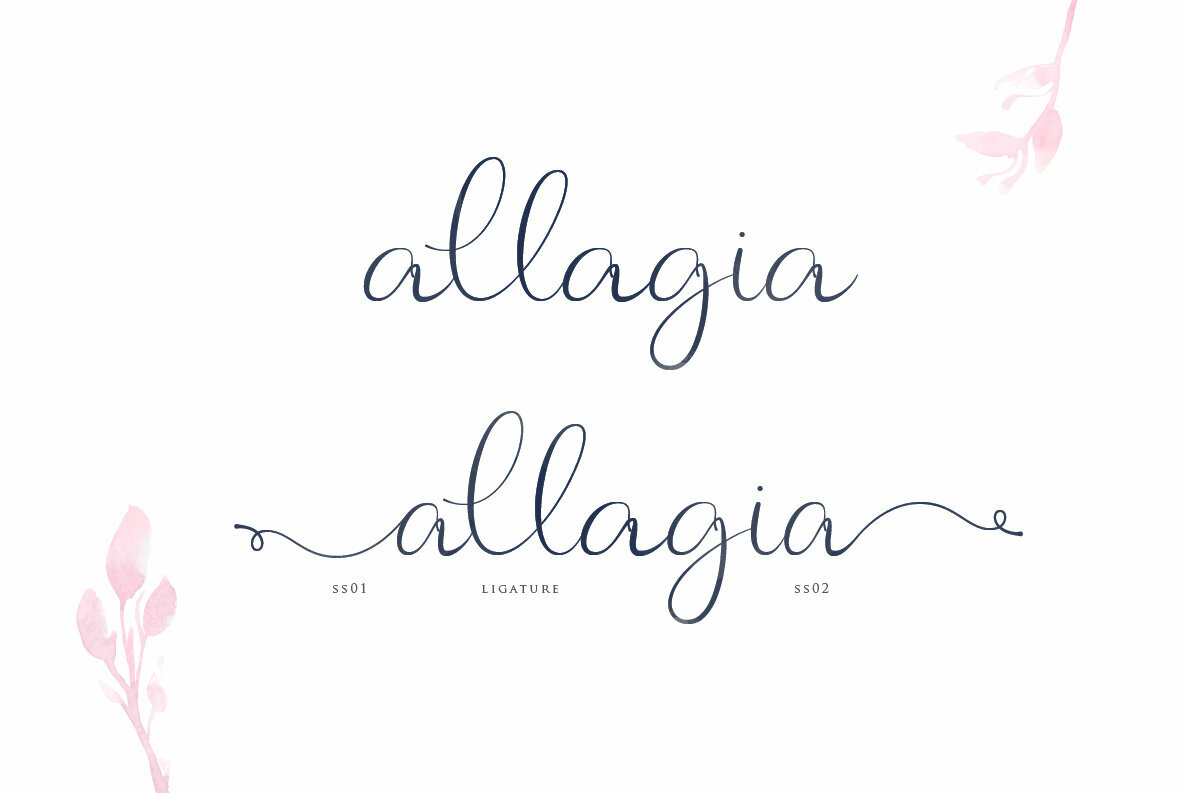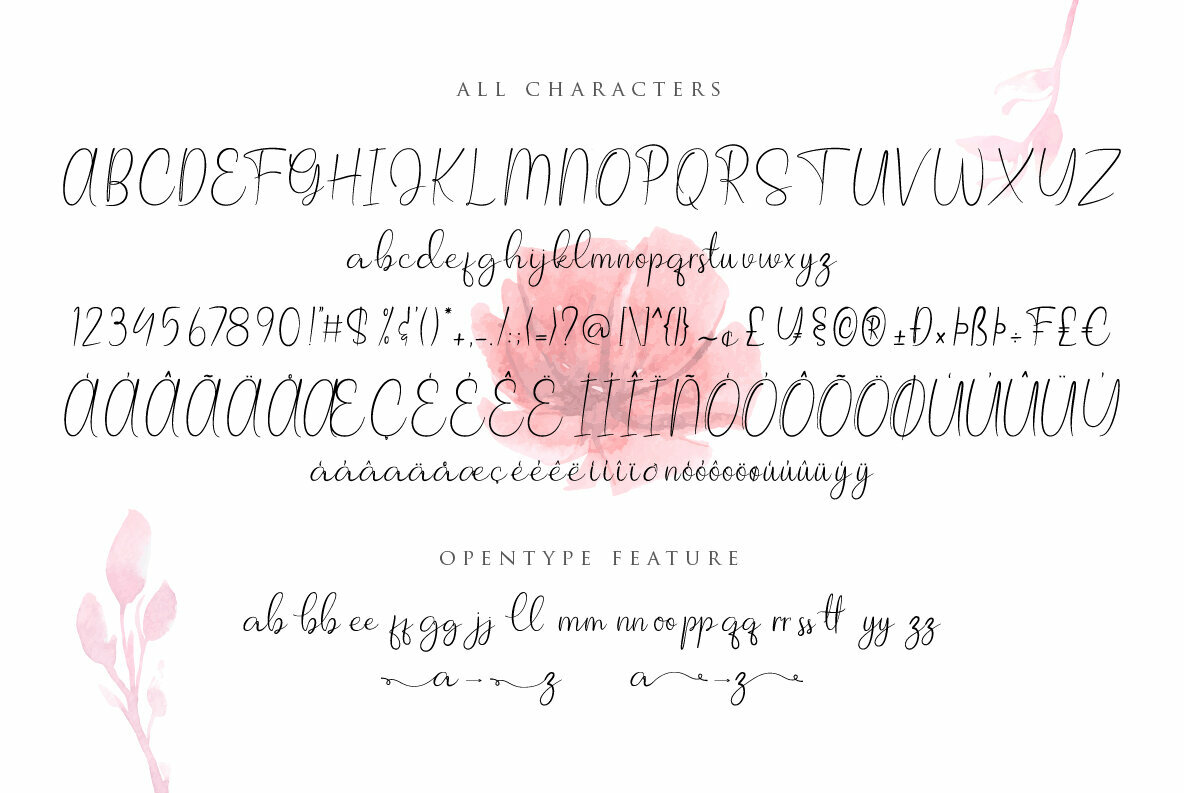
Allagia: Handwritten Elegance for Diverse Applications
Allagia brings the charm of natural handwriting style, making it a versatile choice for a multitude of projects. Whether you are crafting logos, branding, or designing invitations, this font offers a distinct personality that enhances your creative endeavors. Its flexibility extends to wedding designs, social media posts, and advertisements, adding a personal touch to any medium.
• Supports multiple foreign languages, enhancing its global appeal.
• Ideal for product packaging, labels, and posters due to its unique aesthetic.
• Perfect for fashion and photography projects, providing a customized feel.